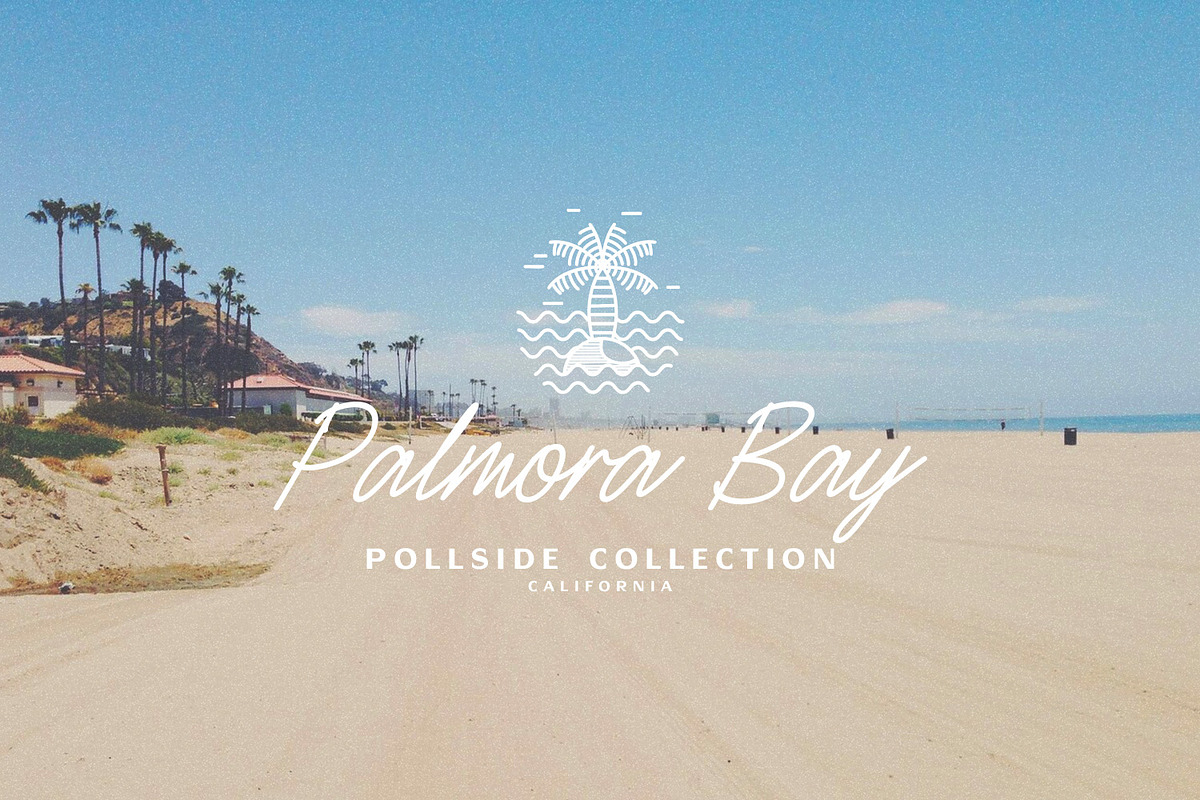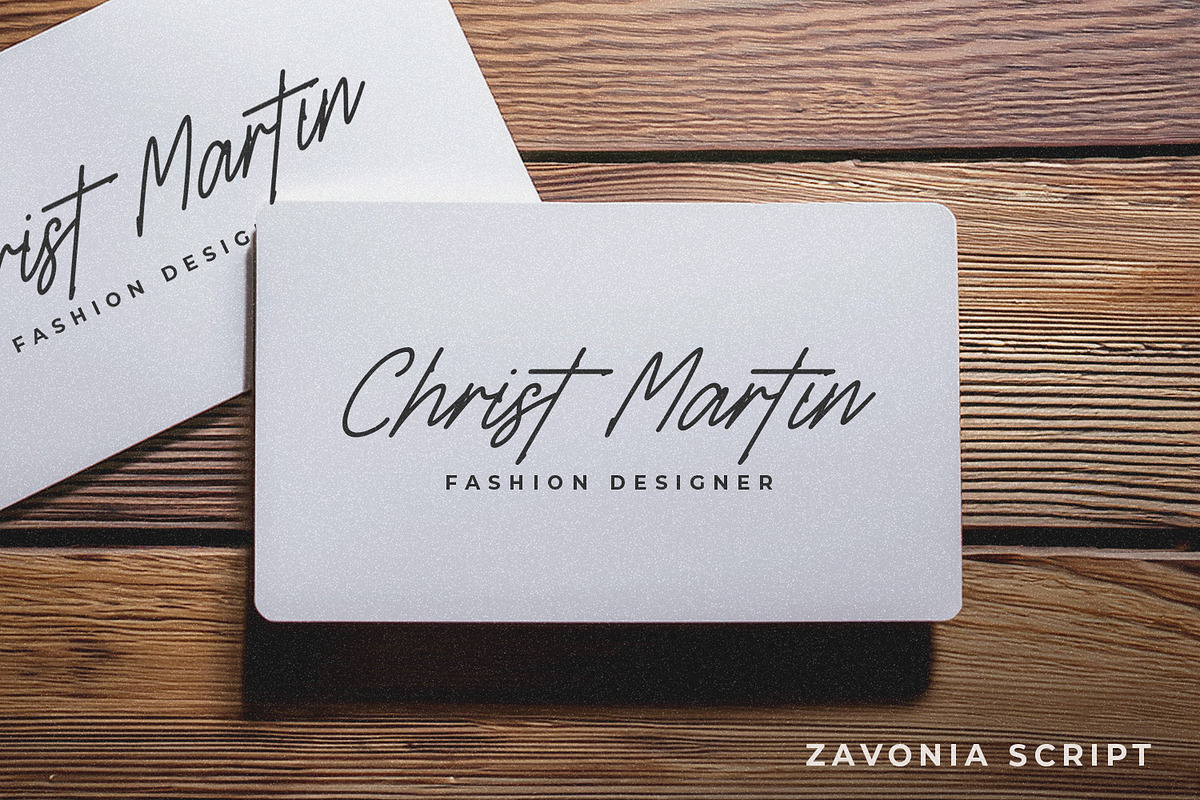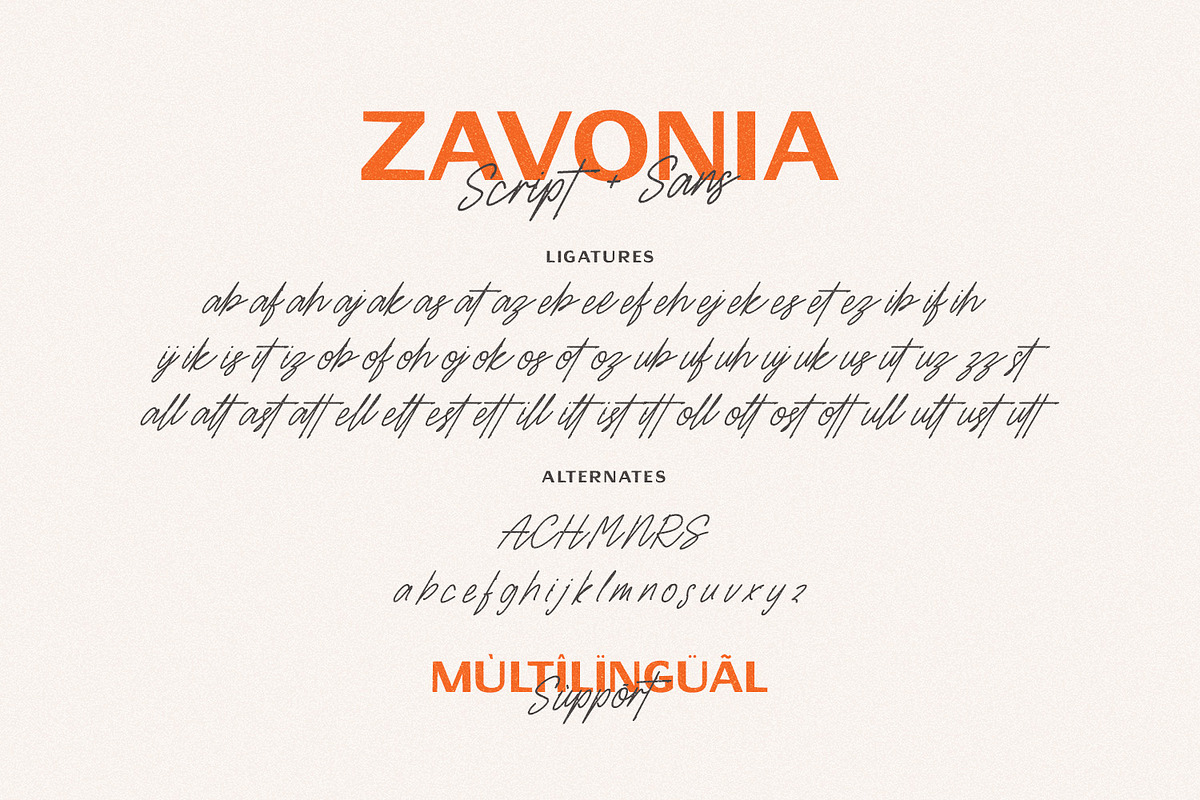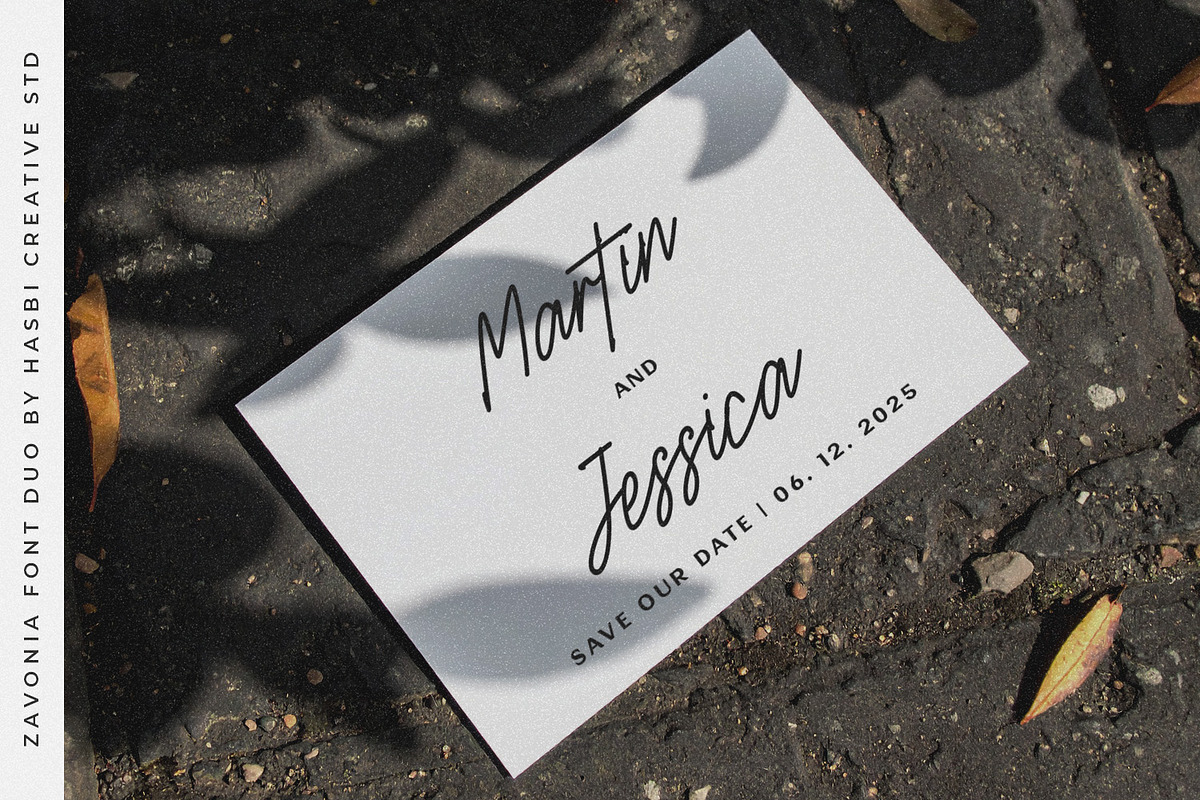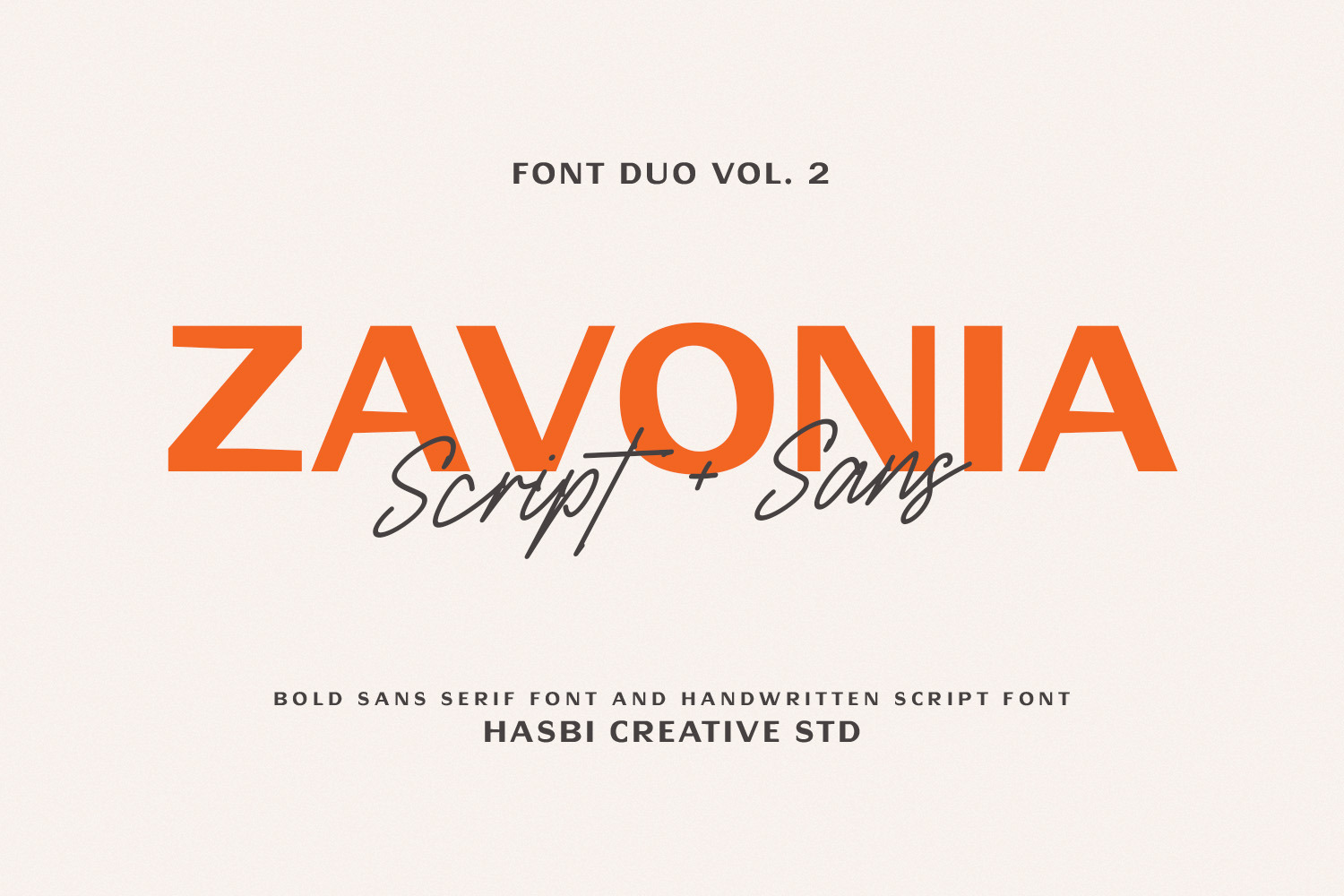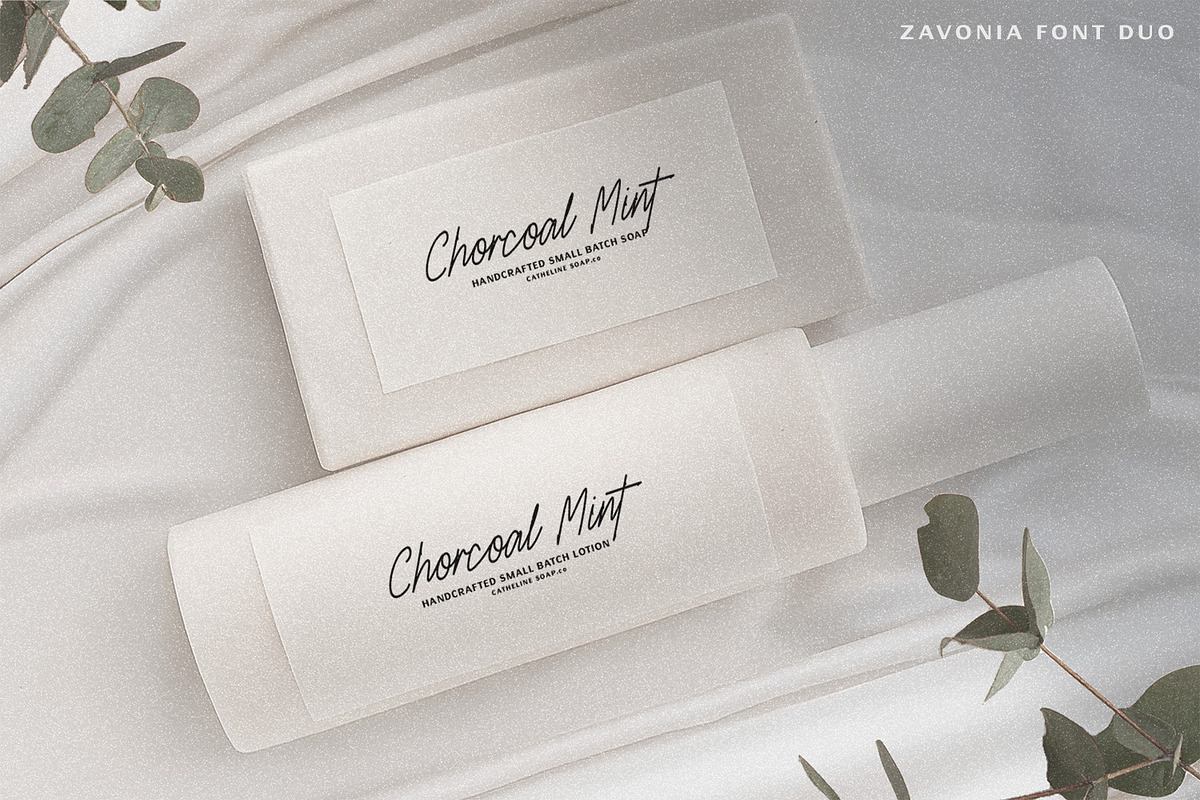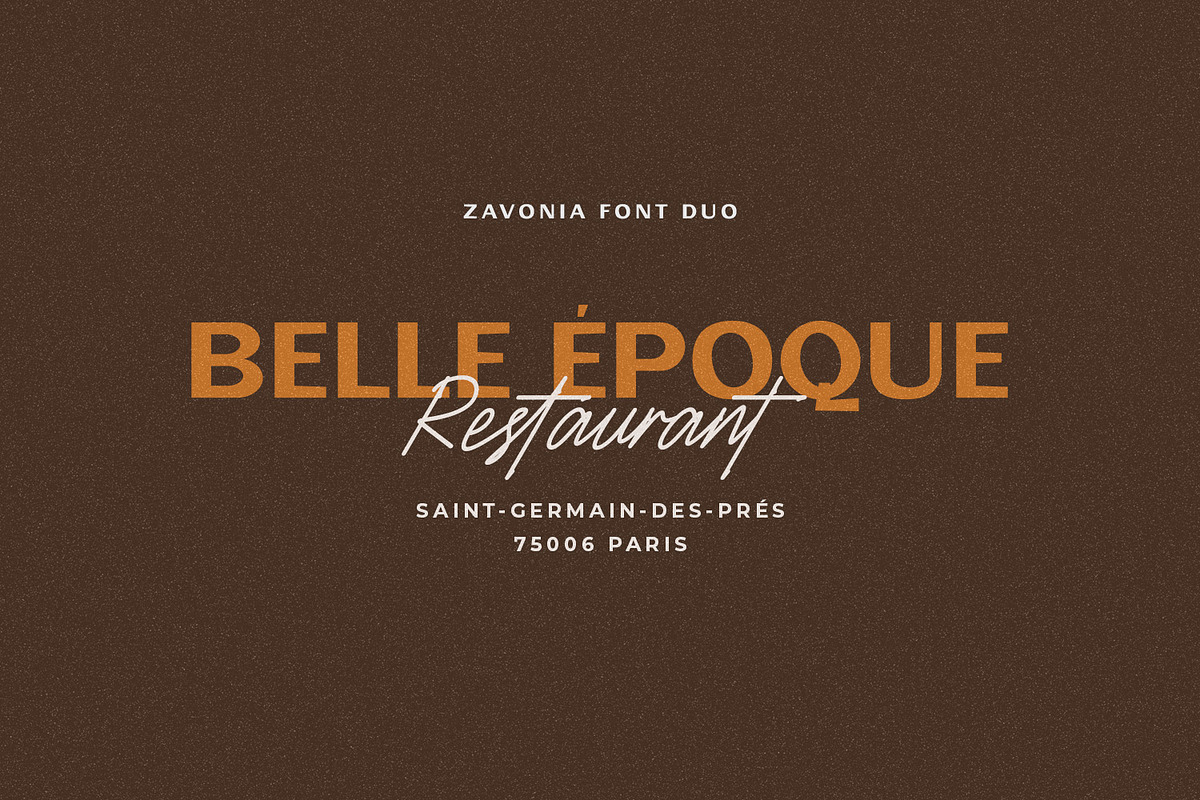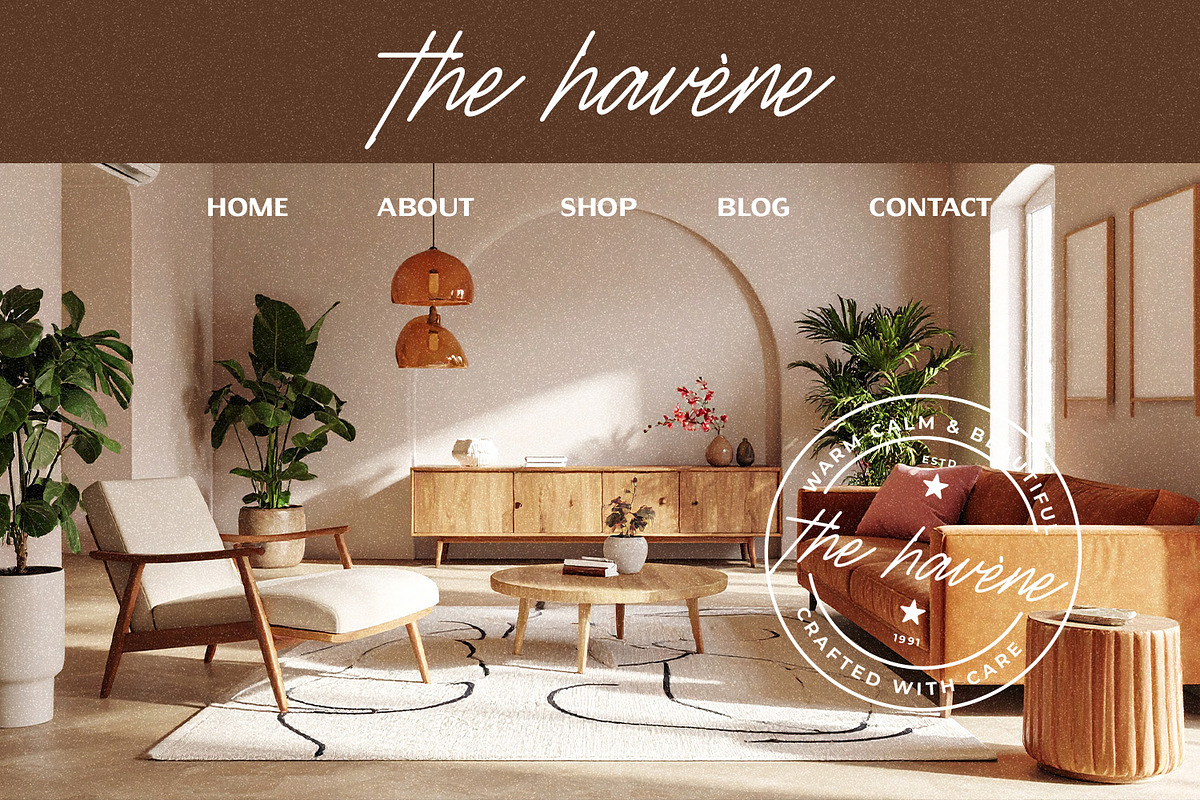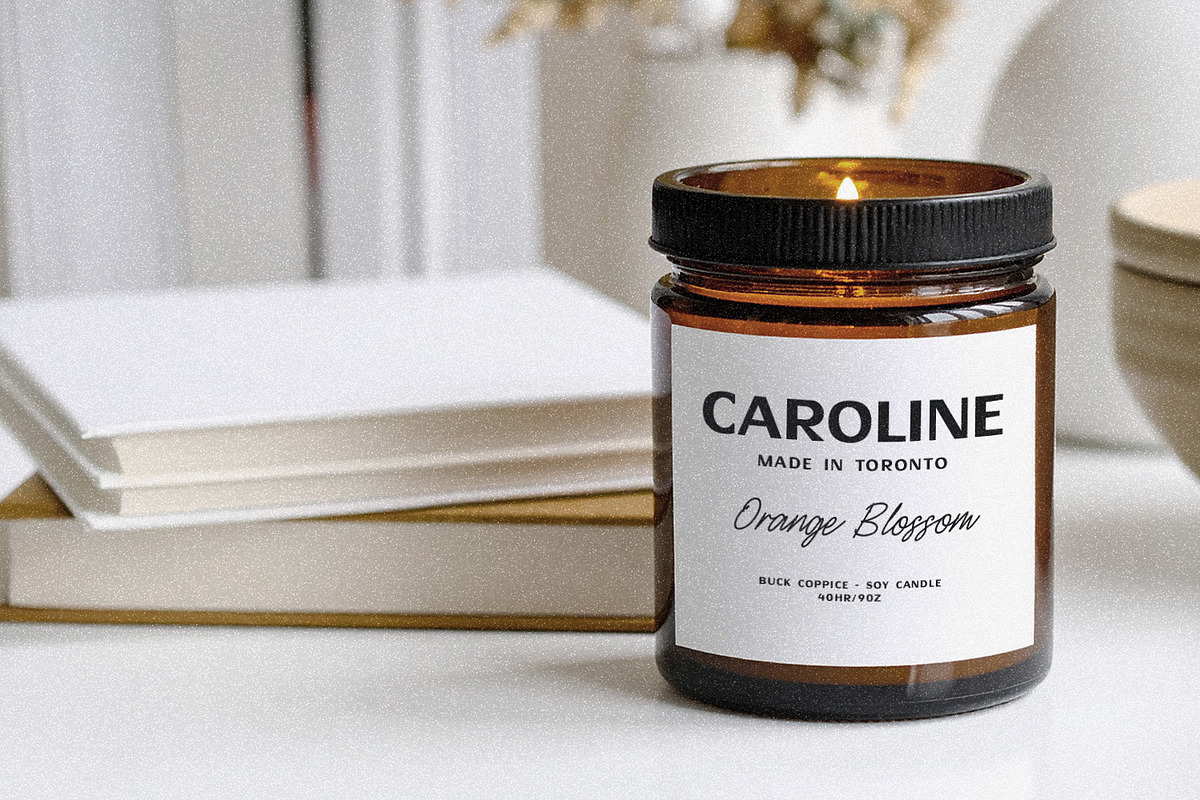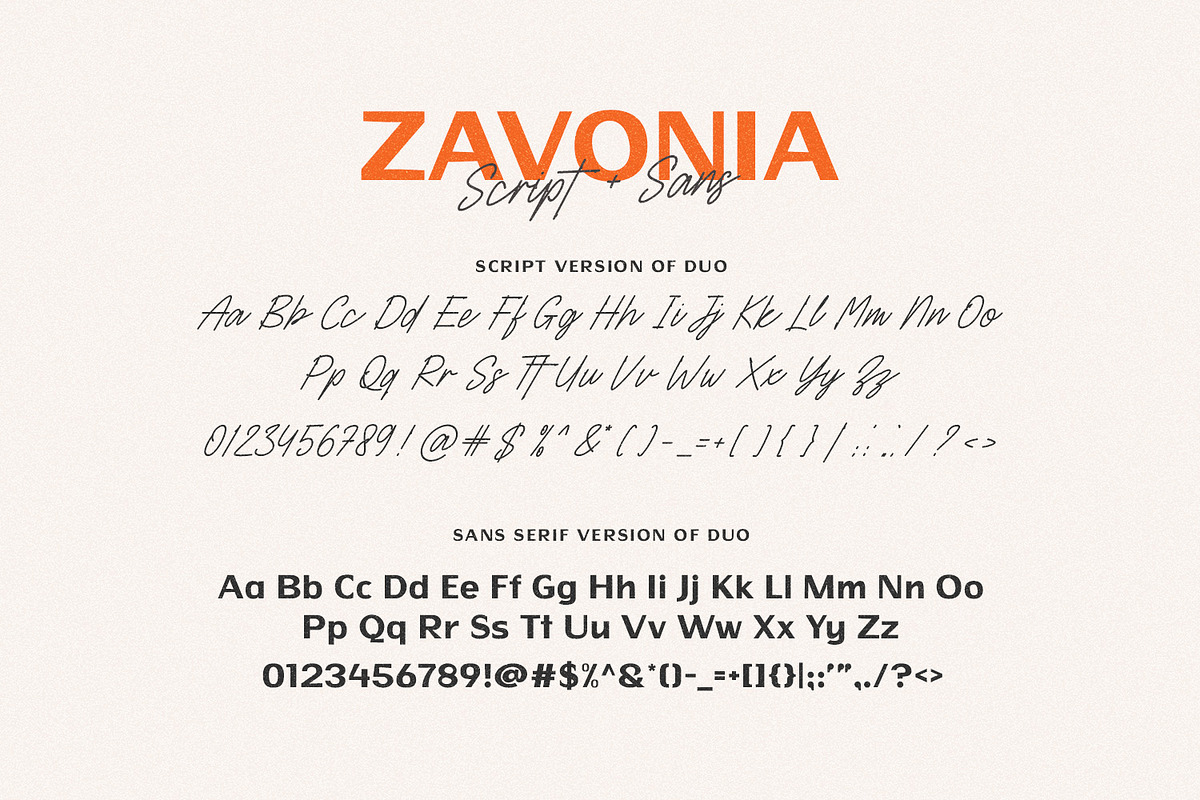
Zavonia – Elegant Script & Sans Font
Zavonia is a modern and elegant font duo featuring a stylish handwritten script and a clean geometric sans serif. Perfectly crafted for branding, logo design, fashion packaging, and social media graphics, this typeface offers a refined yet versatile aesthetic.
Designed for luxury brands, feminine content, lifestyle blogs, and editorial layouts, Zavonia adds sophistication to everything from wedding invitations to Instagram posts.
Branding & Logos
Fashion & Beauty Packaging
Instagram & Canva Templates
Wedding Stationery
Editorial Titles & Magazine Spreads
Blog Headers & Social Banners
Ligatures (Script)